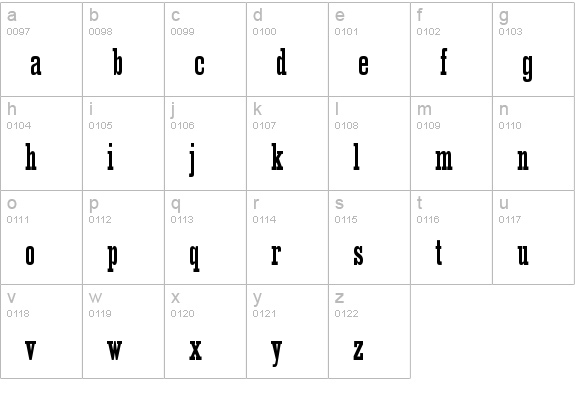
EgyptienneEF-MediumCond Font Details
EgyptienneEF-MediumCond is a classic and elegant font that exudes sophistication and style. With its unique blend of vintage charm and modern appeal, this typeface is perfect for adding a touch of class to any design project. The medium condensed weight offers a versatile choice for headlines, titles, and other prominent text elements. Best of all, EgyptienneEF-MediumCond is available for free download at FontsMarket.com. Whether you're working on a professional project or simply looking to enhance your personal creations, this font is a valuable addition to any designer's toolkit. Don't miss the opportunity to elevate your designs with the timeless beauty of EgyptienneEF-MediumCond. Download it today and take your typography to the next level!